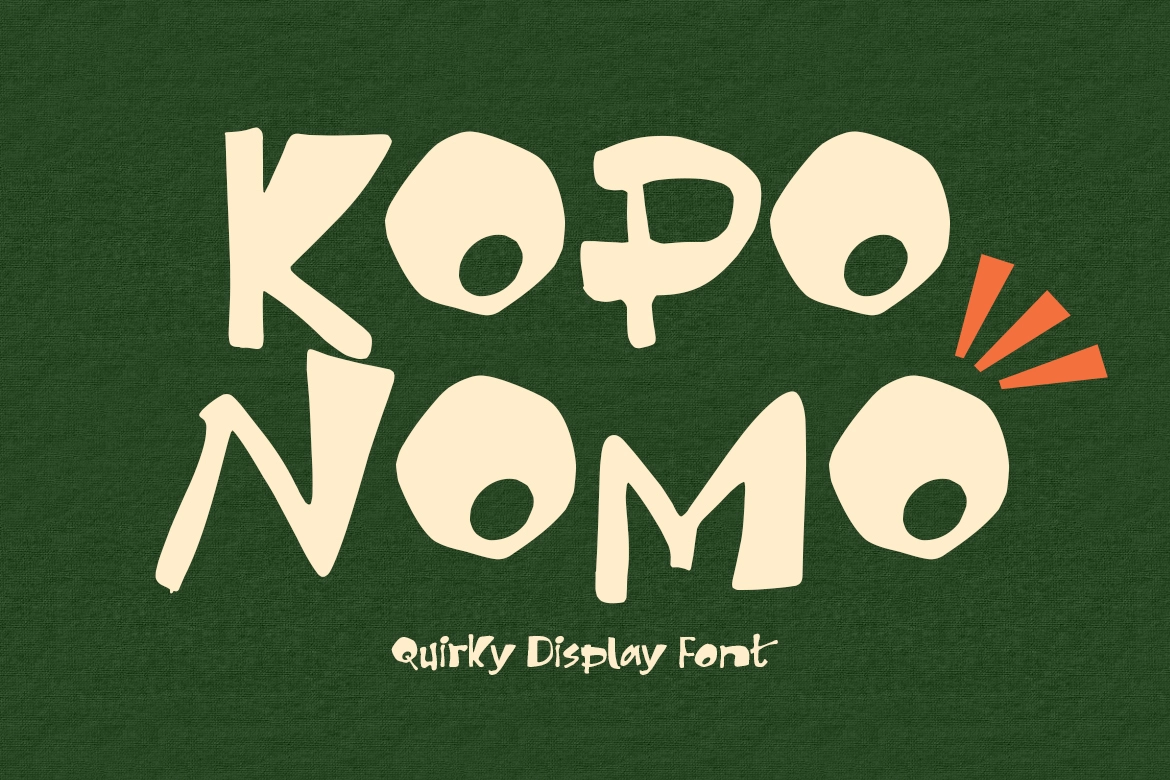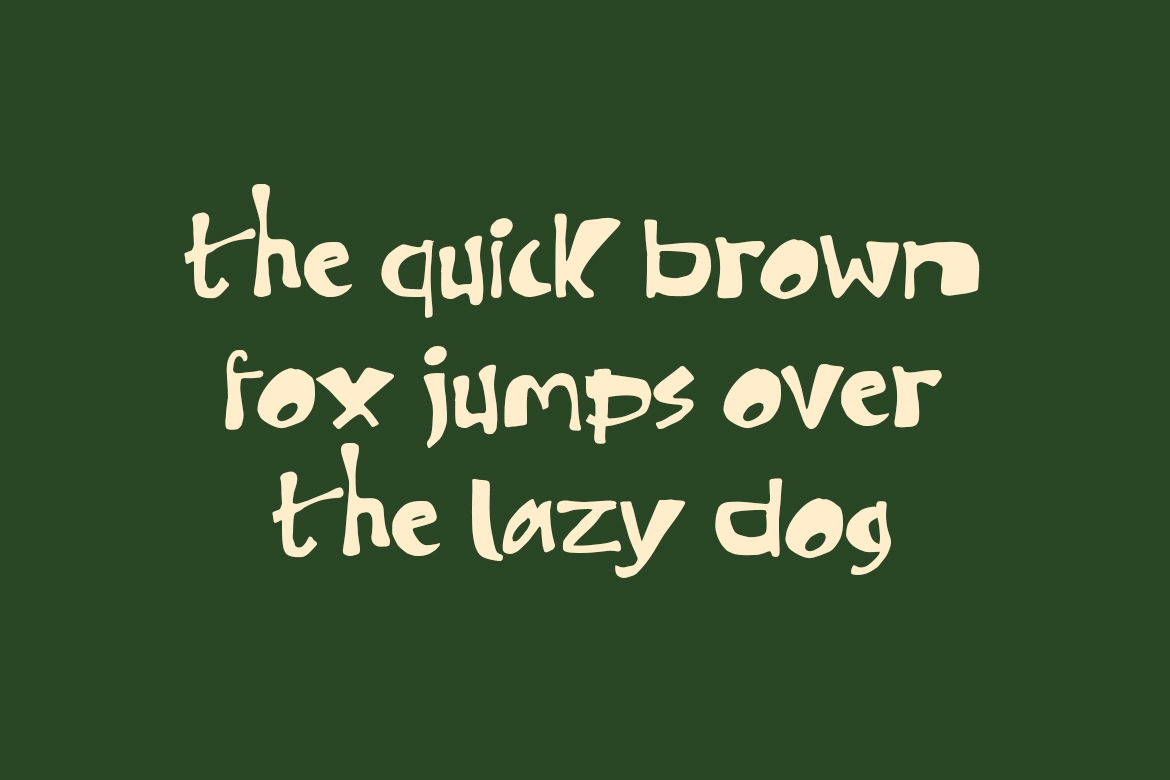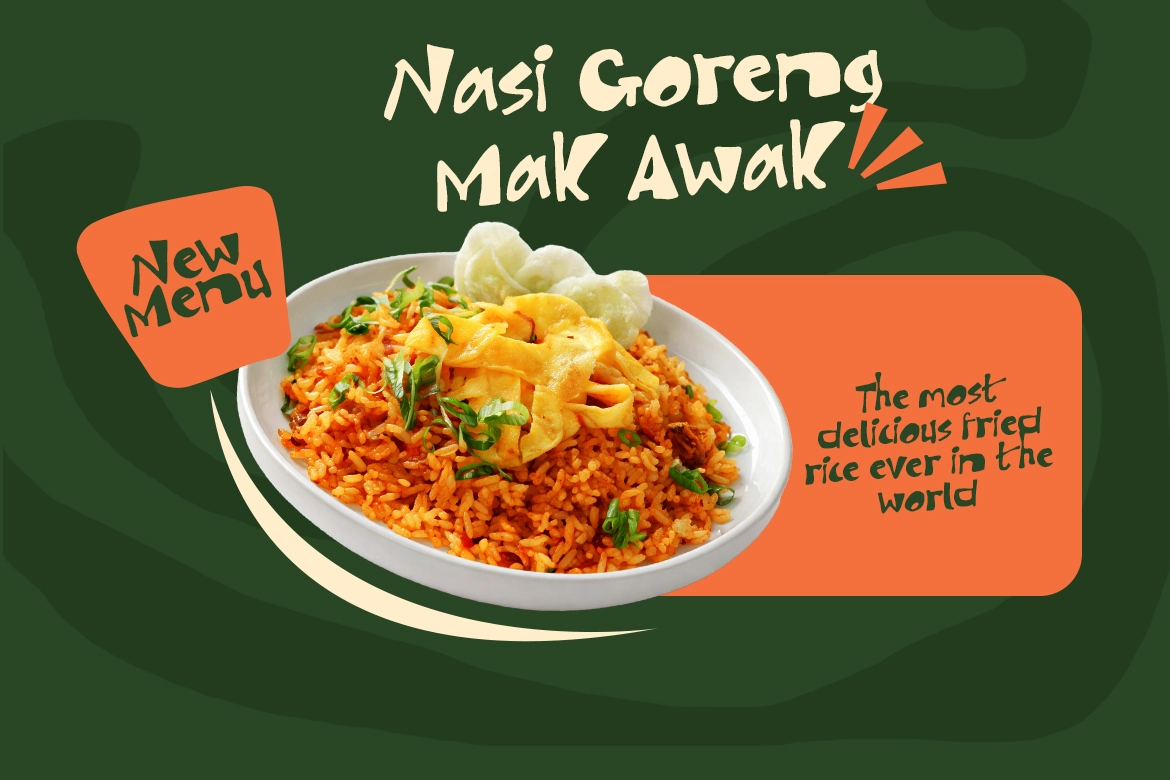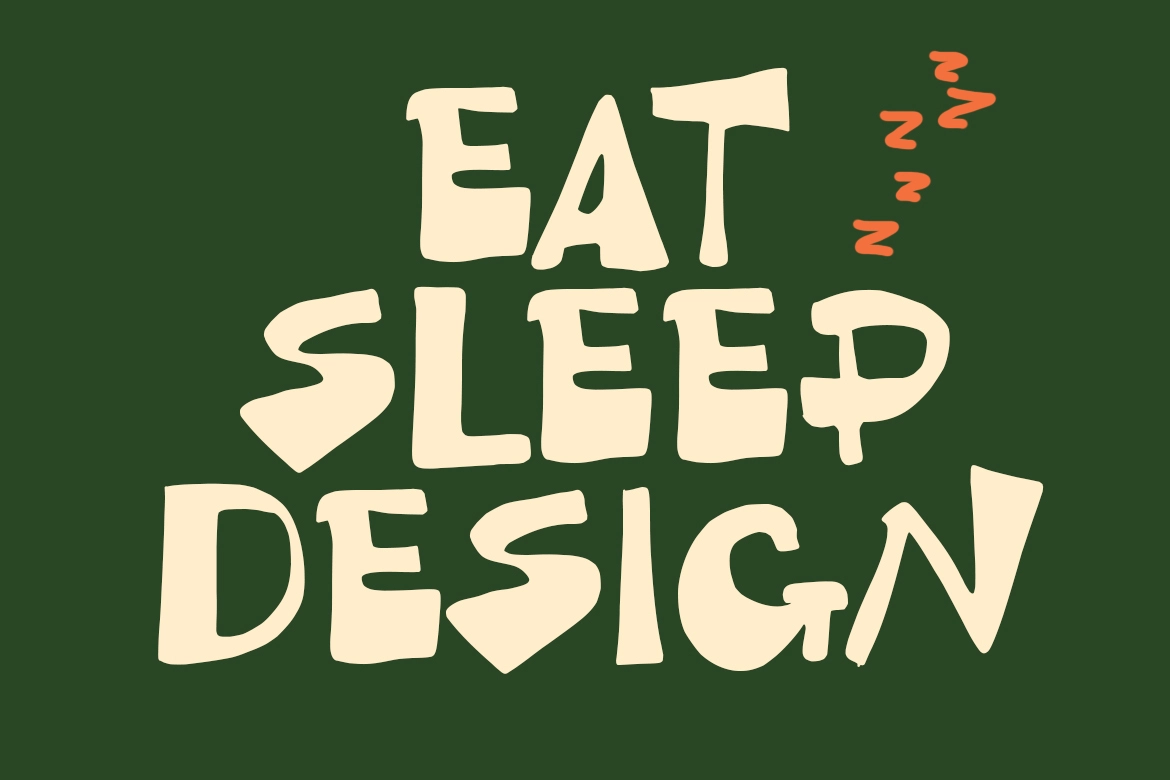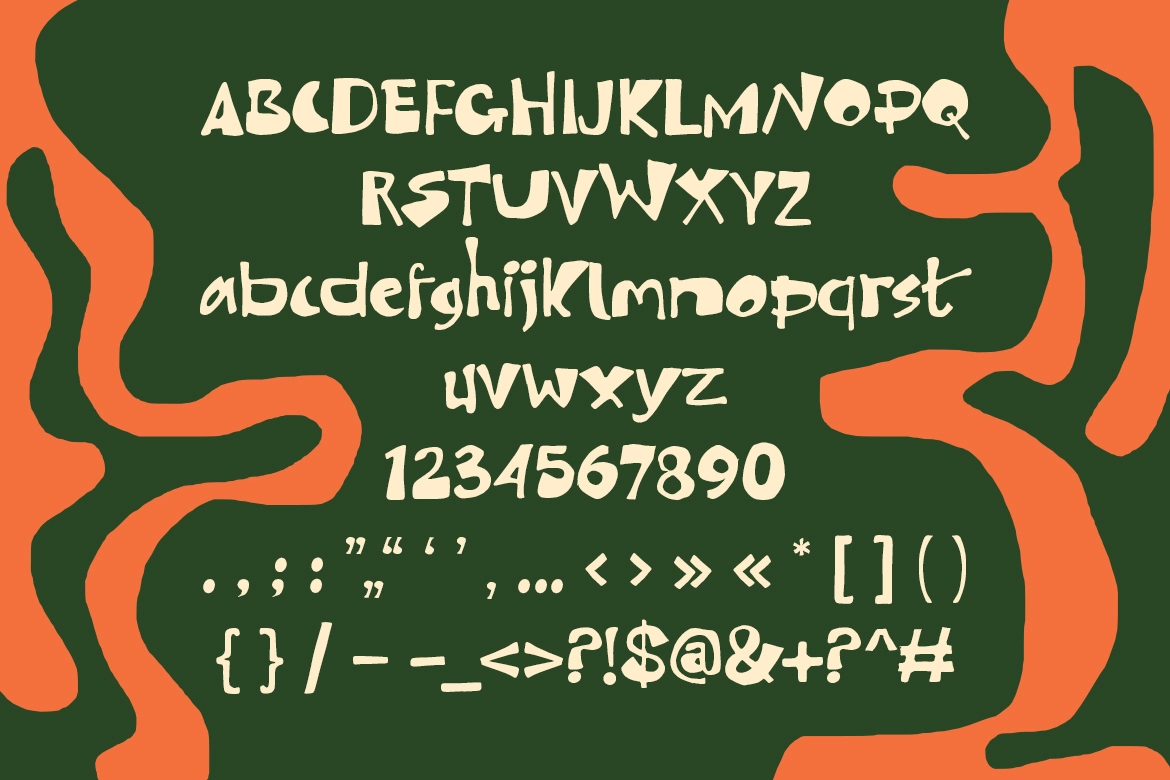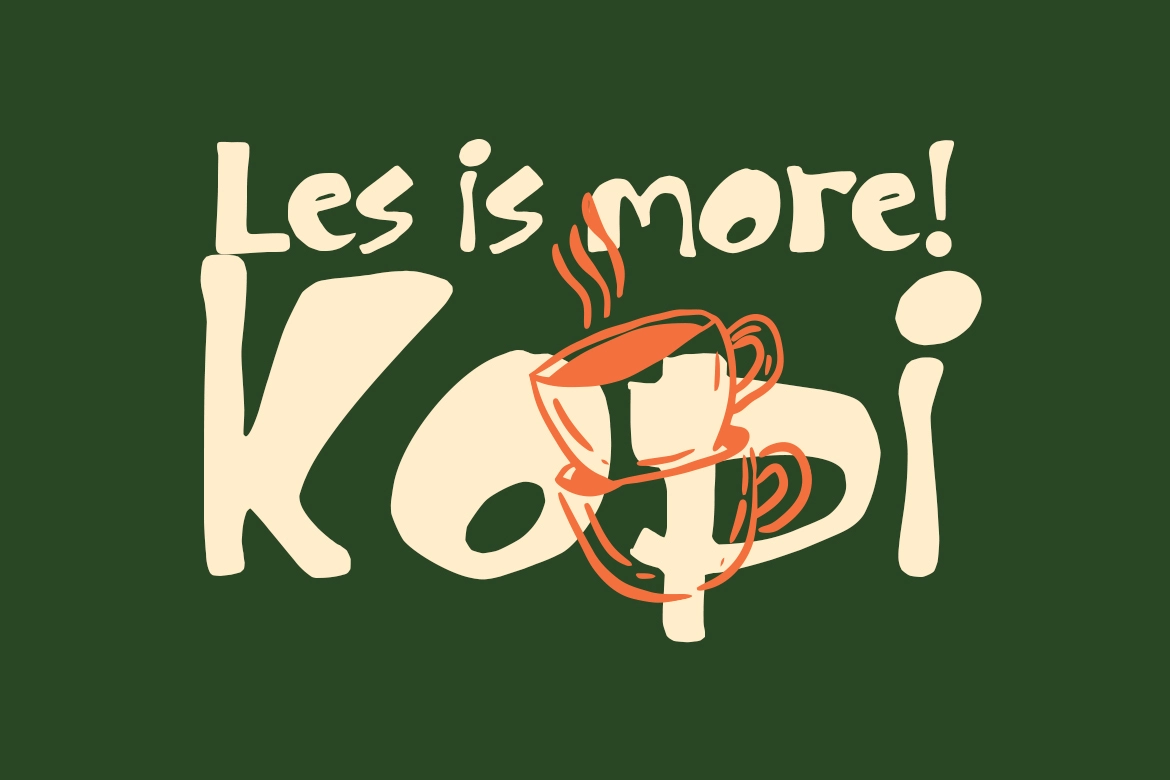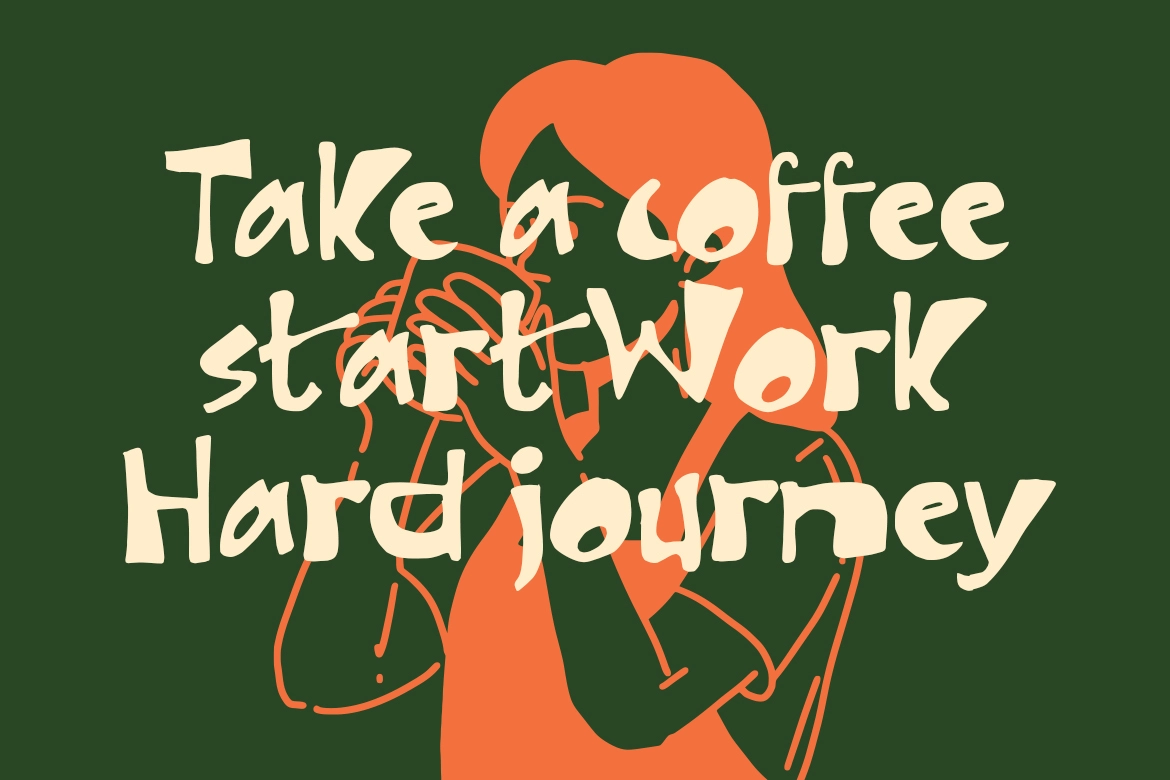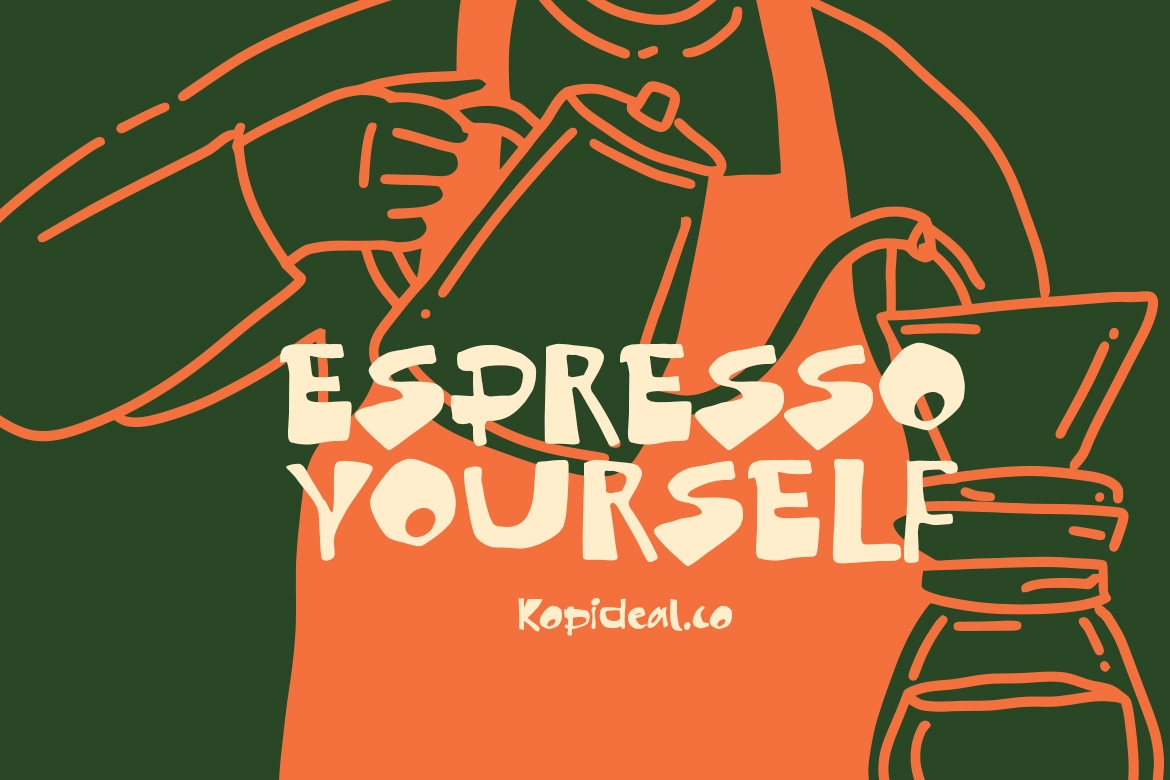
Kopo Nomo - Quirky Display Font
Kopo Nomo – Quirky Display Font is a playful hand-drawn display typeface featuring bold, chunky letterforms and charming irregular shapes. Its organic strokes and slightly uneven structure create a warm, handmade aesthetic that instantly brings personality and friendliness to any design. The quirky style gives the font a relaxed and approachable character, making it perfect for creative projects that need a fun and expressive visual tone.
Designed for eye-catching headlines and branding, Kopo Nomo works beautifully for café identities, bakery packaging, restaurant menus, food branding, and social media graphics. Its bold shapes ensure strong readability while maintaining a playful handcrafted look that adds authenticity and charm to any layout.